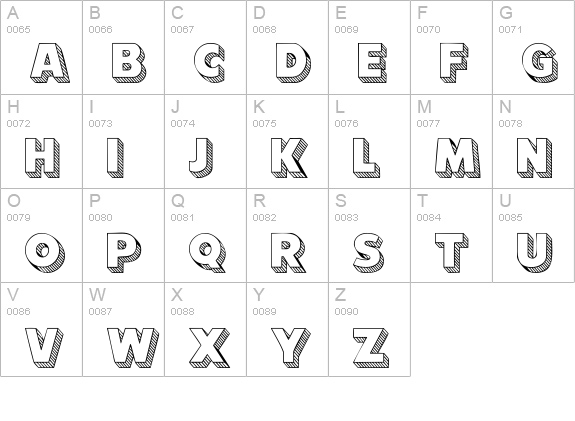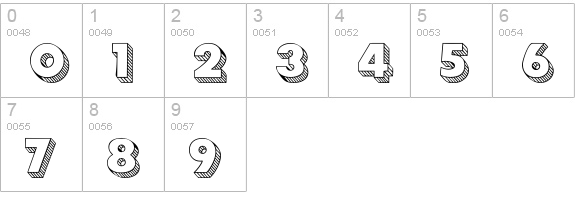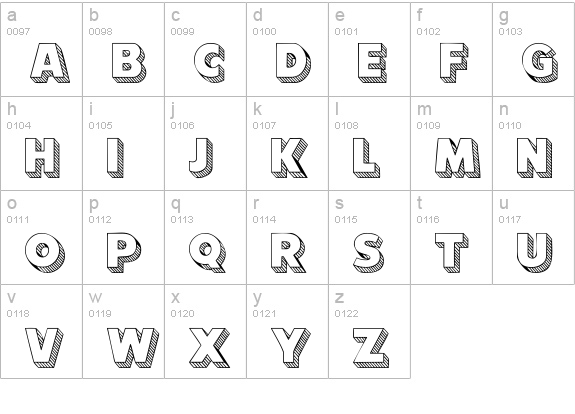
Introducing the captivating and eye-catching 101! Block LetterZ font, a true gem for all typography enthusiasts! This unique font effortlessly combines a bold and powerful block letter design with a touch of artistic flair, creating a perfect balance between modernity and vintage charm. With its meticulously crafted letterforms, 101! Block LetterZ stands out from the crowd, making any text instantly attention-grabbing. This versatile font is perfect for a wide range of design projects, from eye-catching logos and headlines to striking posters and bold branding materials. But here's the best part - 101! Block LetterZ is absolutely free! Yes, you read that right. You can freely download this incredible font from the trusted source, FontsMarket.com. This means that you can elevate your designs and make them stand out without spending a dime. Not only does 101! Block LetterZ offer an extensive character set, including uppercase letters, numbers, and punctuation marks, but it also provides multiple stylistic alternates and ligatures. These additional features allow you to experiment and customize your designs, adding a personal touch to every project. Whether you're a professional designer looking to add a unique touch to your work or a creative individual seeking to make your personal projects shine, 101! Block LetterZ is the perfect choice. Its bold and distinctive style will leave a lasting impression on your audience, making your designs memorable and impactful. So don't miss out on this incredible opportunity! Download 101! Block LetterZ for free at FontsMarket.com and unlock a world of creative possibilities. Let your imagination run wild and create stunning designs that demand attention. With 101! Block LetterZ, your typography game will never be the same again.